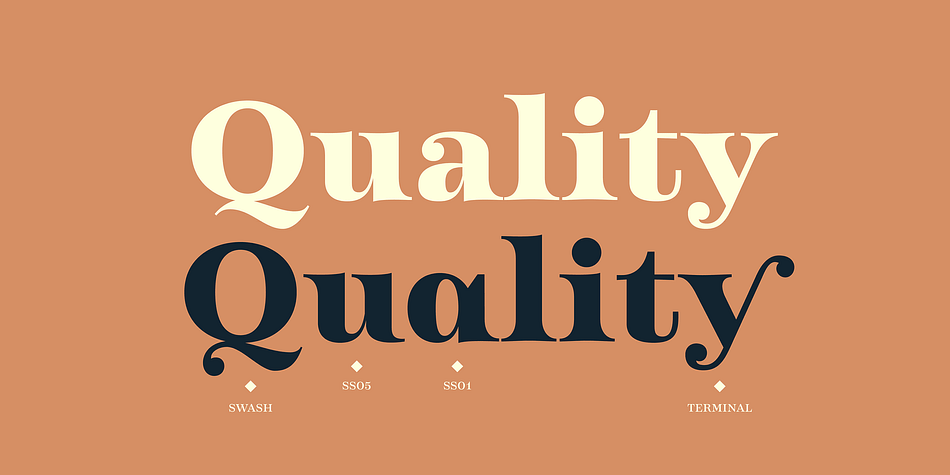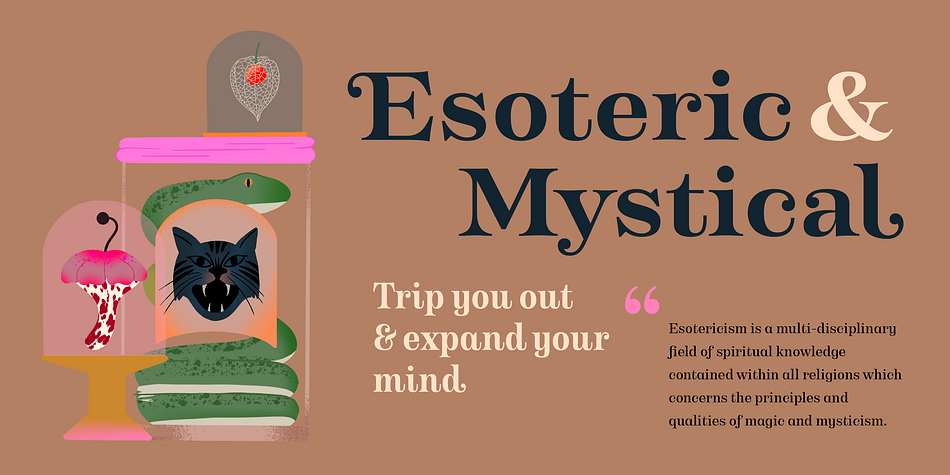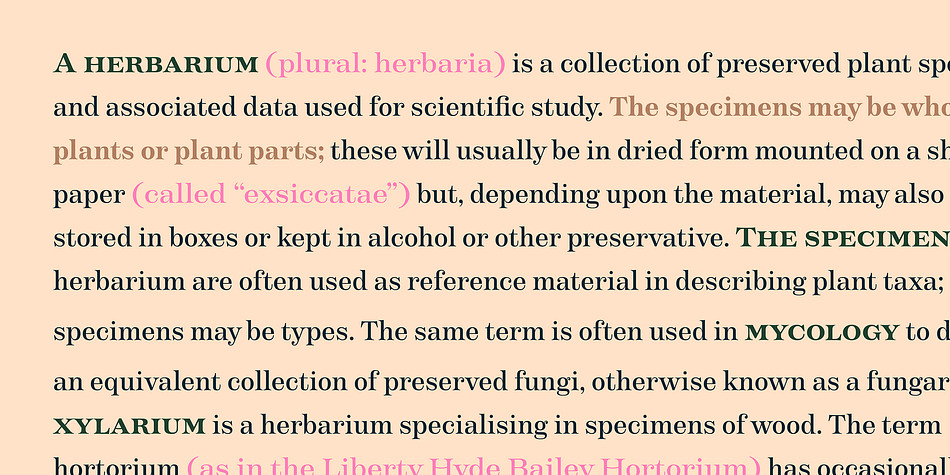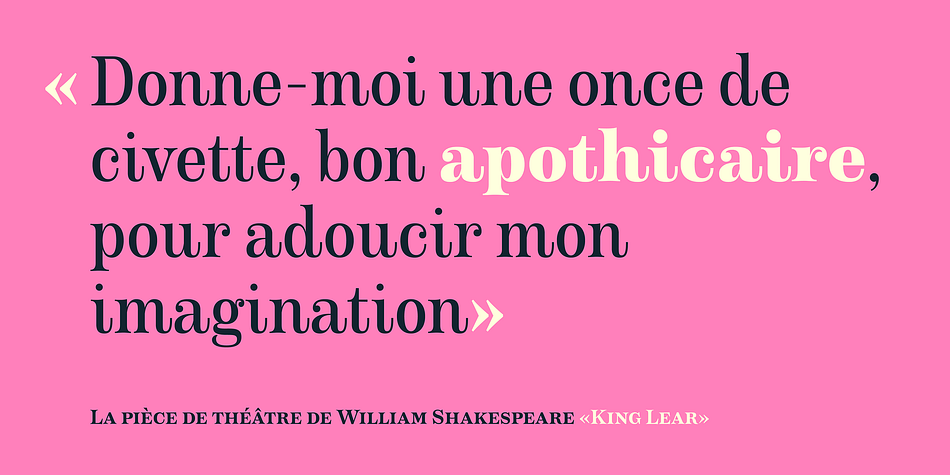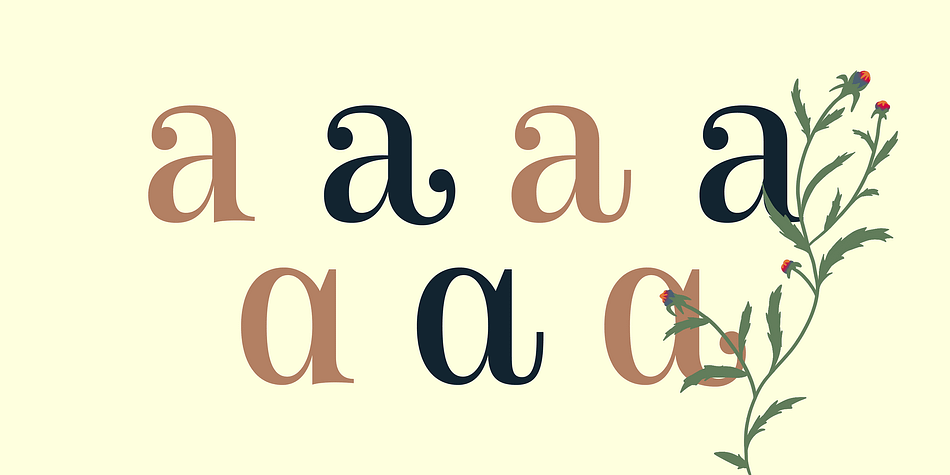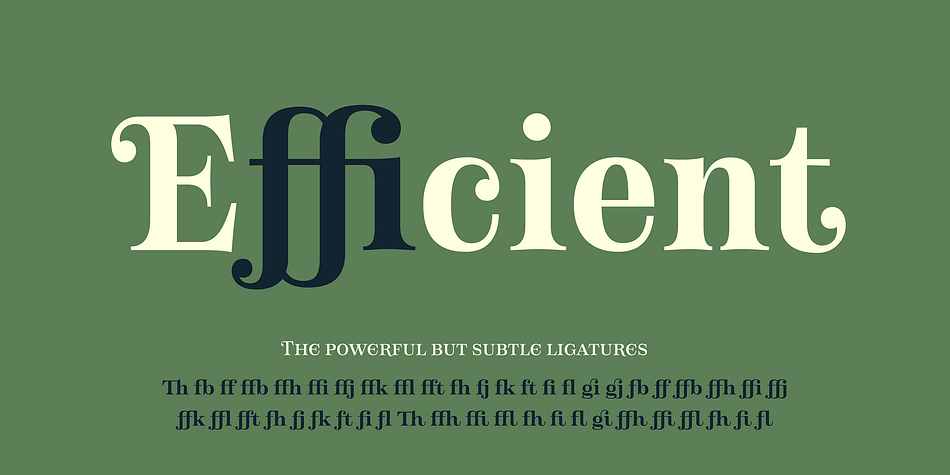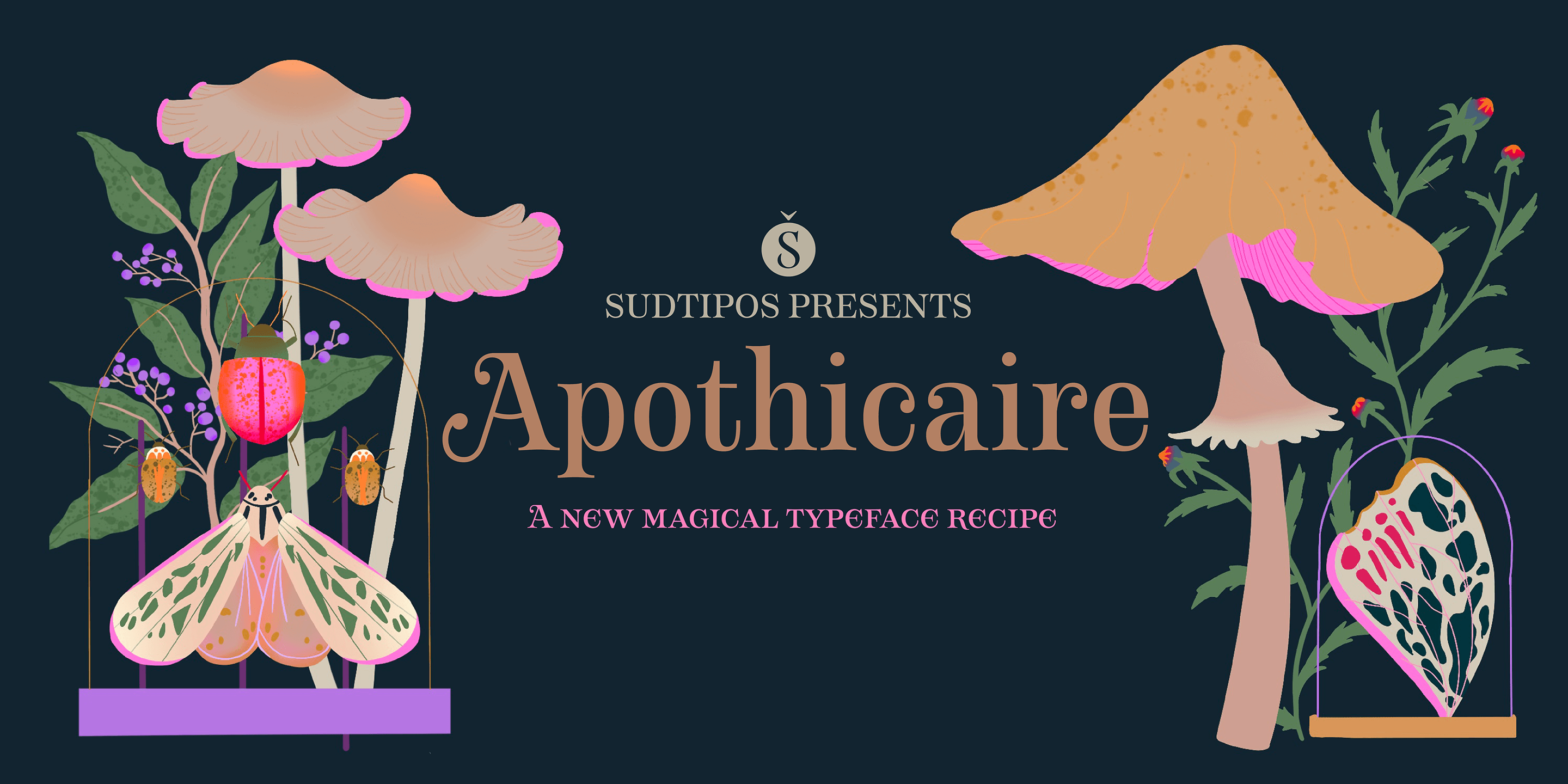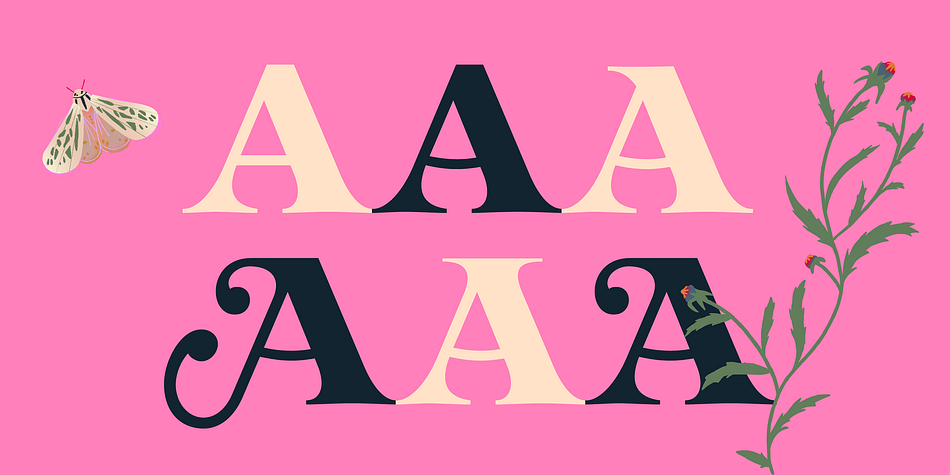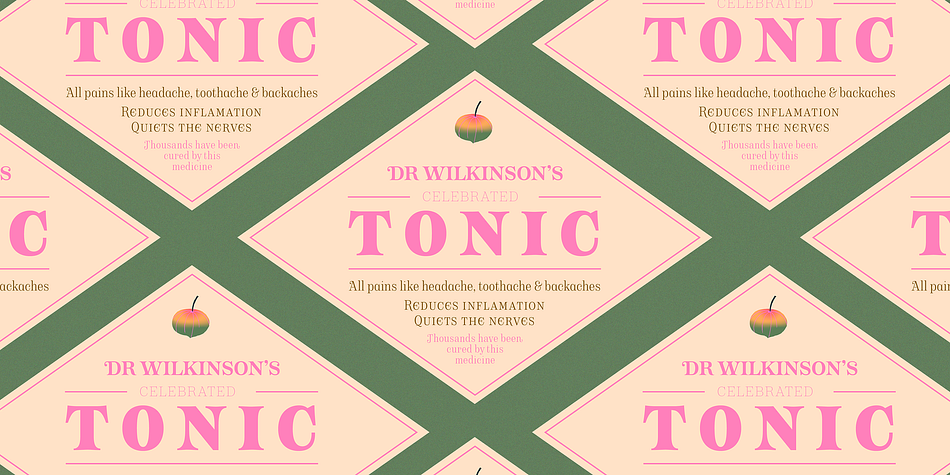
Designed by Alejandro Paul, Apothicaire is a serif font family. This typeface has sixteen styles and was published by Sudtipos.
Apothicaire is a new font designed by Ale Paul and the Sudtipos team that is inspired in, but not limited to, an antique style casted by a German type foundry during the late XIX century.
With the addition of a contemporary design approach, Apothicaire comes in three widths —from condensed to expanded— and five weights —from light to extra bold—, offering a wide range of combinations to explore. As a bonus the font family is also available in a single variable format. An elegant small caps set, a variety of ball terminals and delicate swashes, as well as the possibility to choose from many alternates are also included in the OpenType features. Apothicaire supports a wide range of Latin alphabet-based languages.